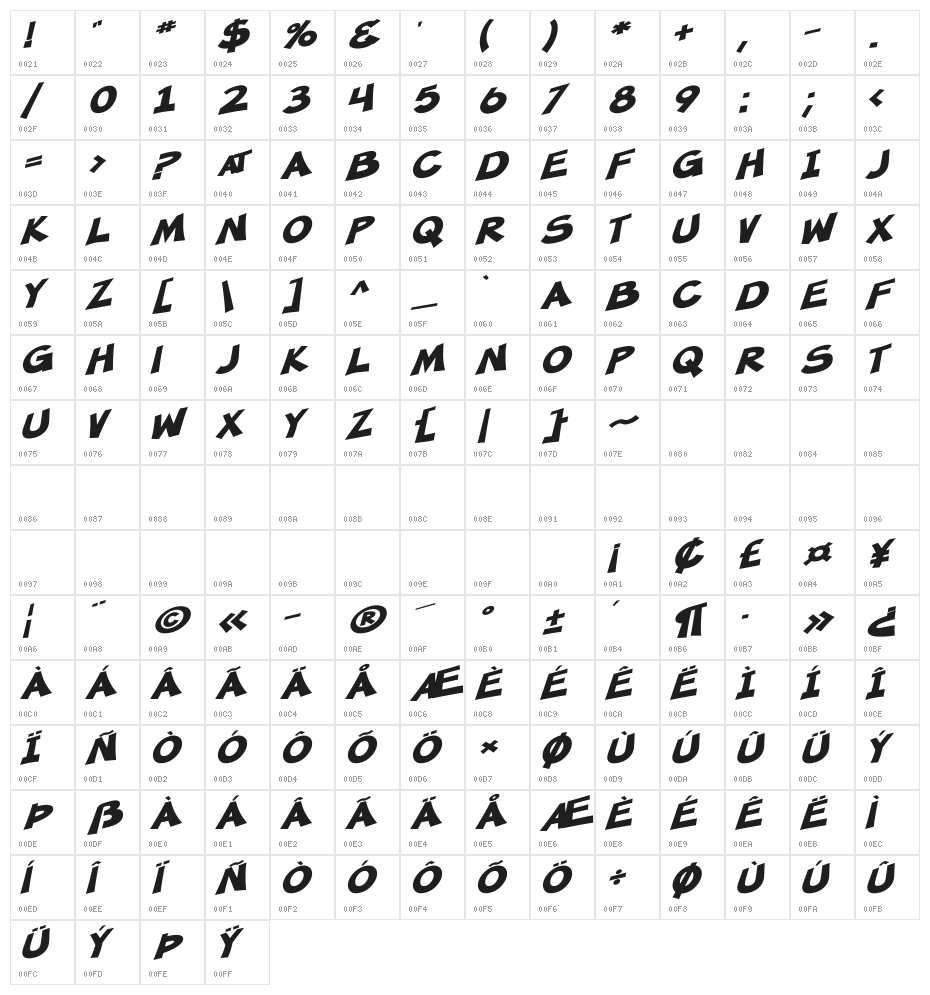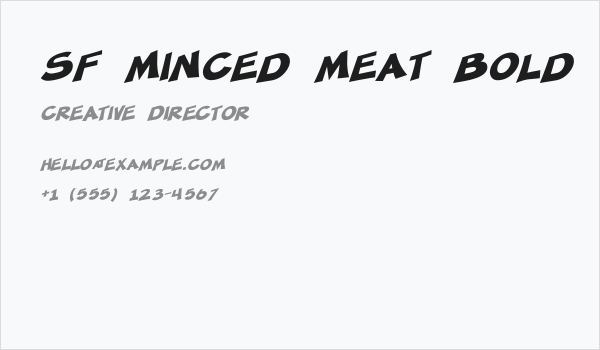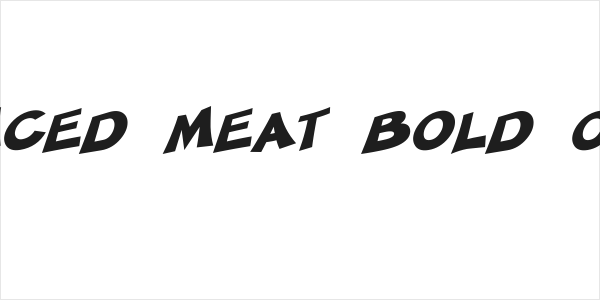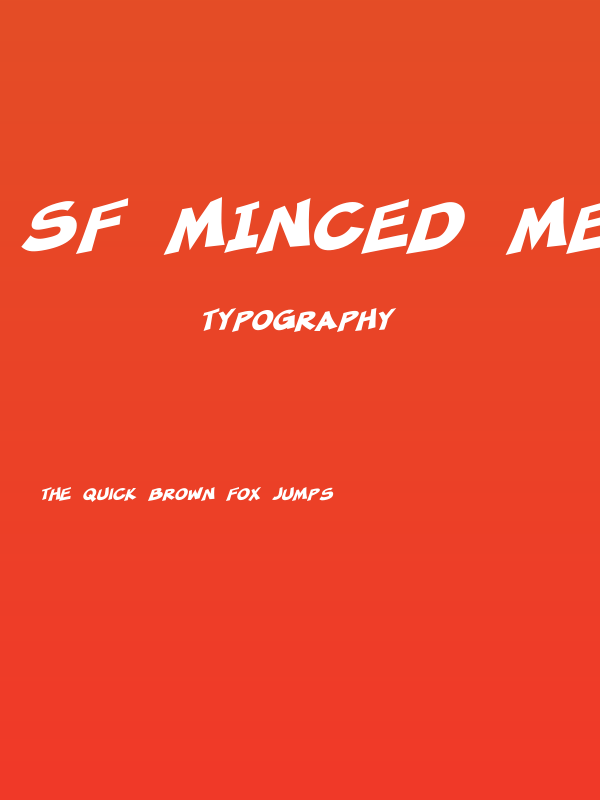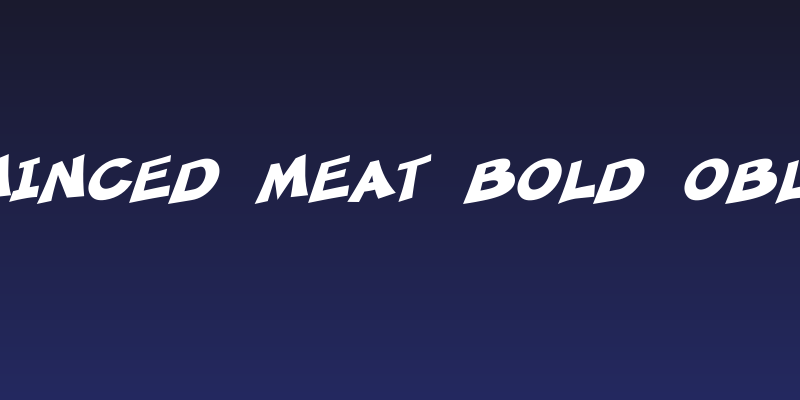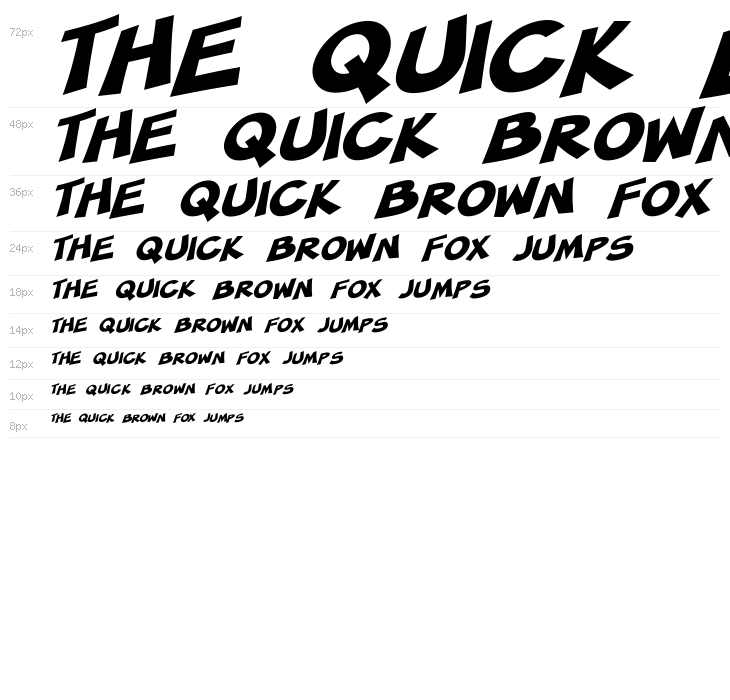
SF Minced Meat Bold Oblique Font
SF Minced Meat Bold Oblique Description
This font features a bold and dynamic style with an oblique slant, giving it a sense of movement and energy. The characters are thick and robust, with sharp angles and a slightly condensed appearance. The uppercase and lowercase letters maintain a consistent style, with a strong emphasis on diagonal lines and pointed edges. The numbers and special characters follow the same bold and slanted design, ensuring uniformity across all glyphs. This font's striking appearance makes it suitable for attention-grabbing designs.
| Proposed Projects | Ideal for sports branding, dynamic posters, and eye-catching headlines. |